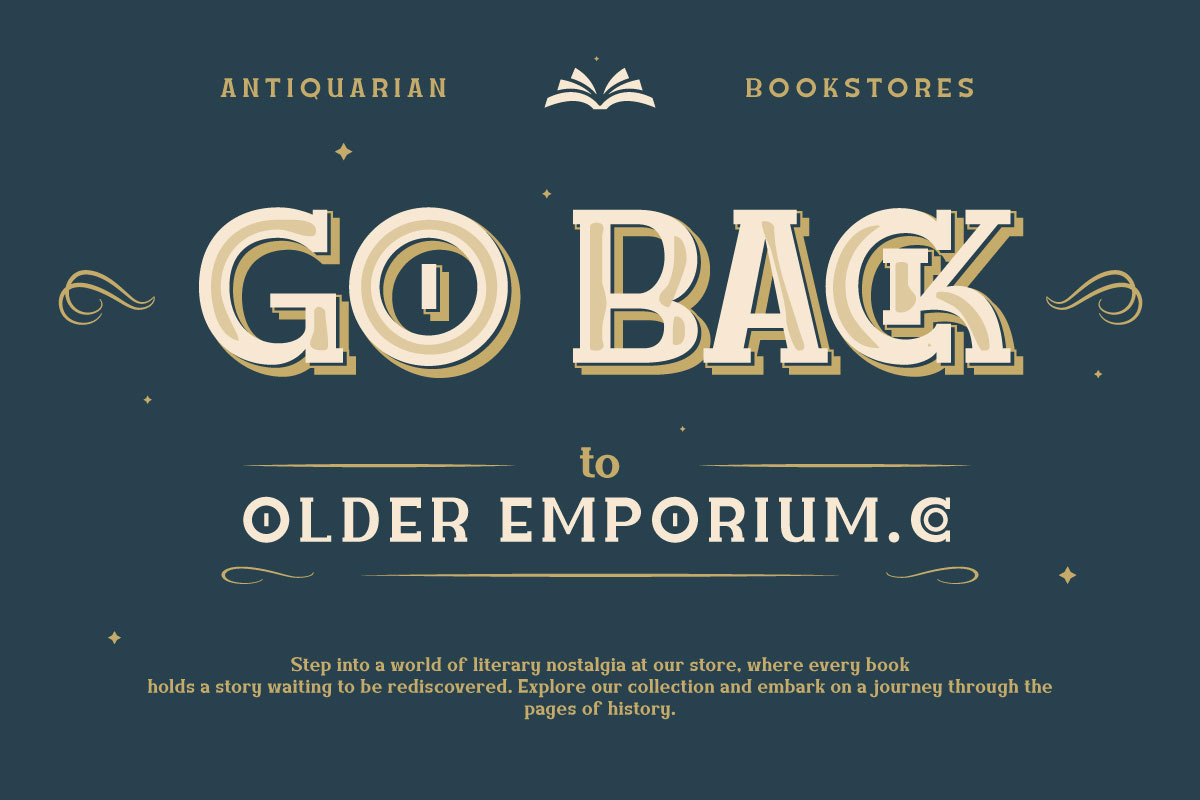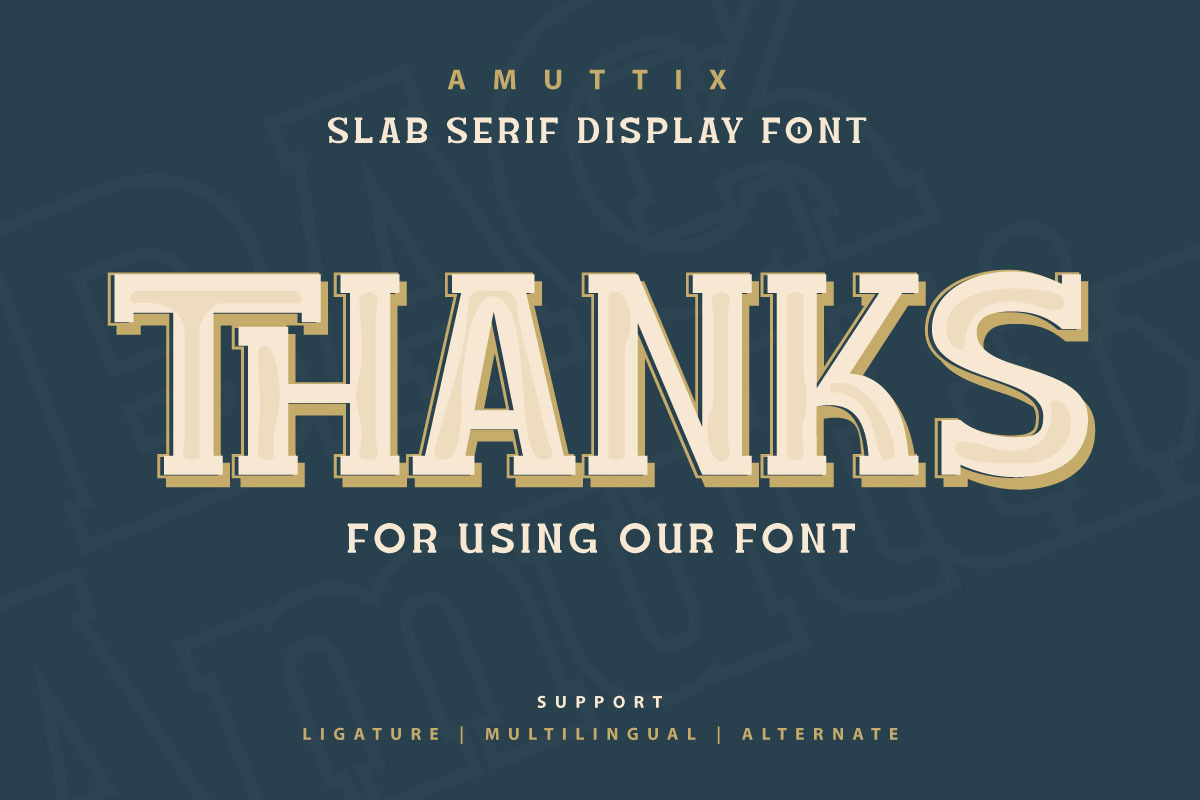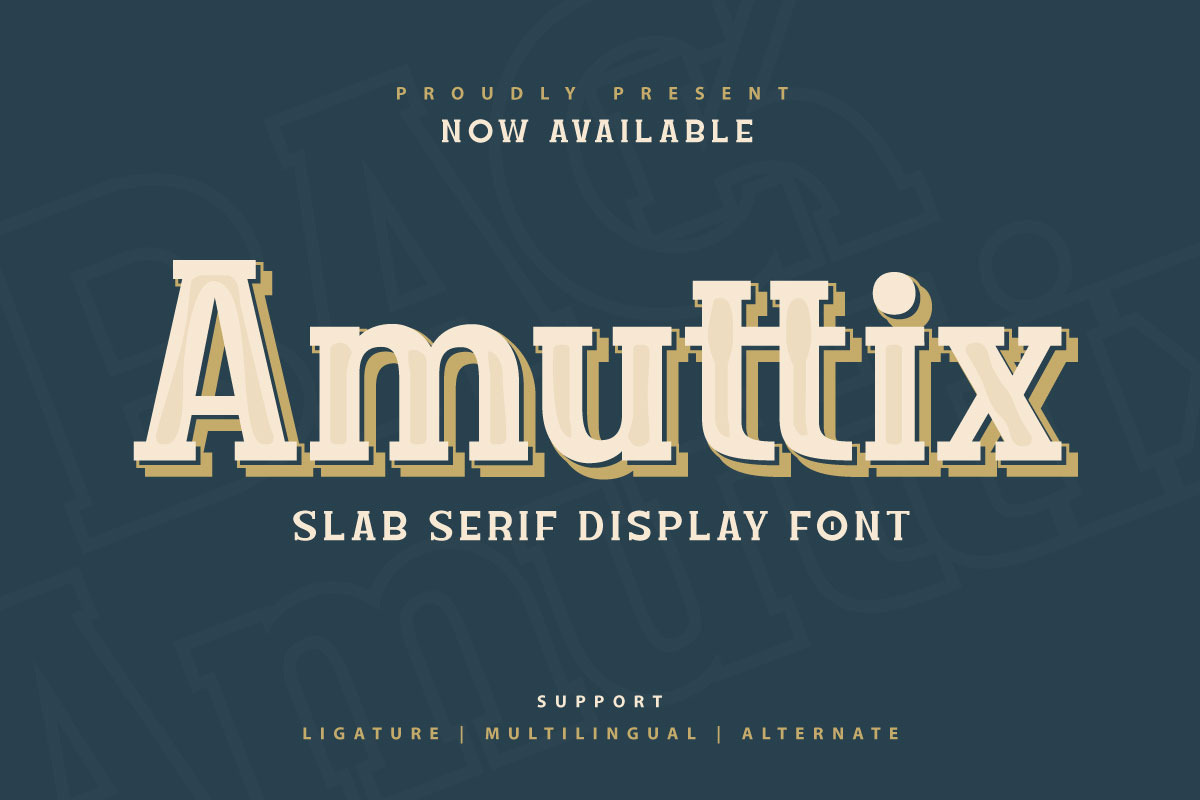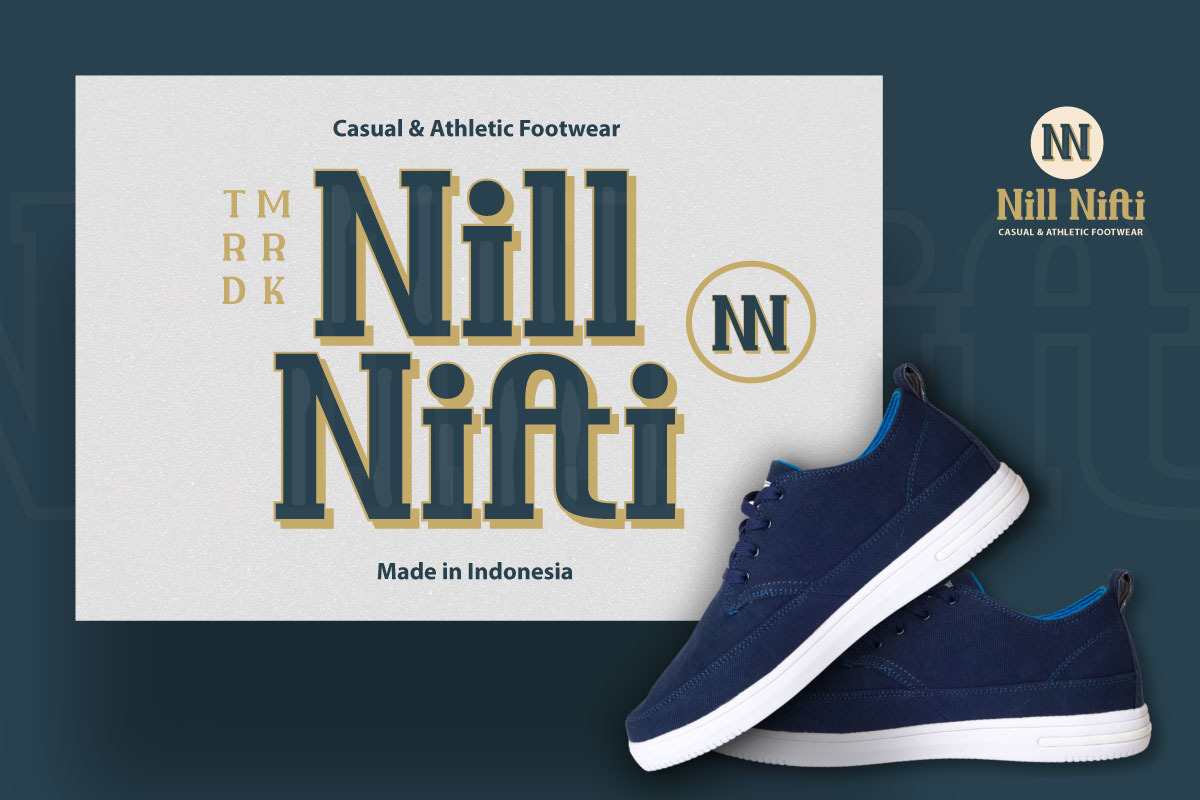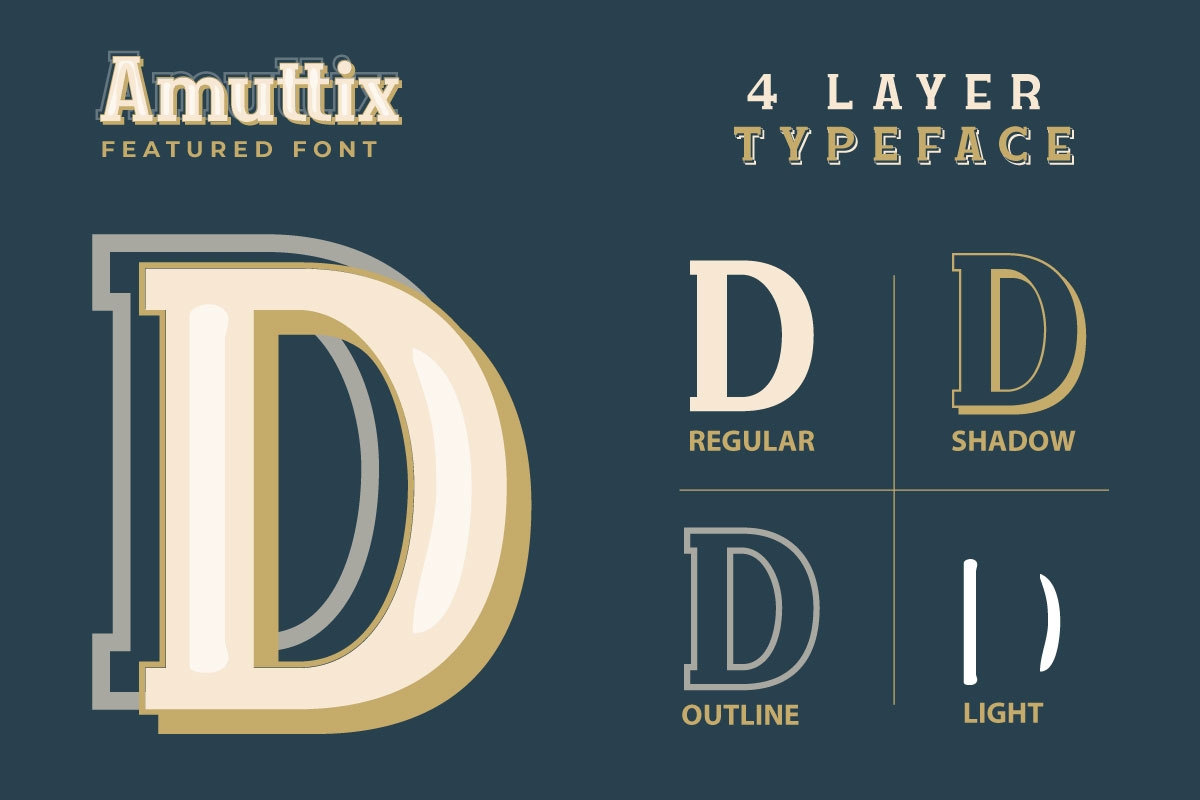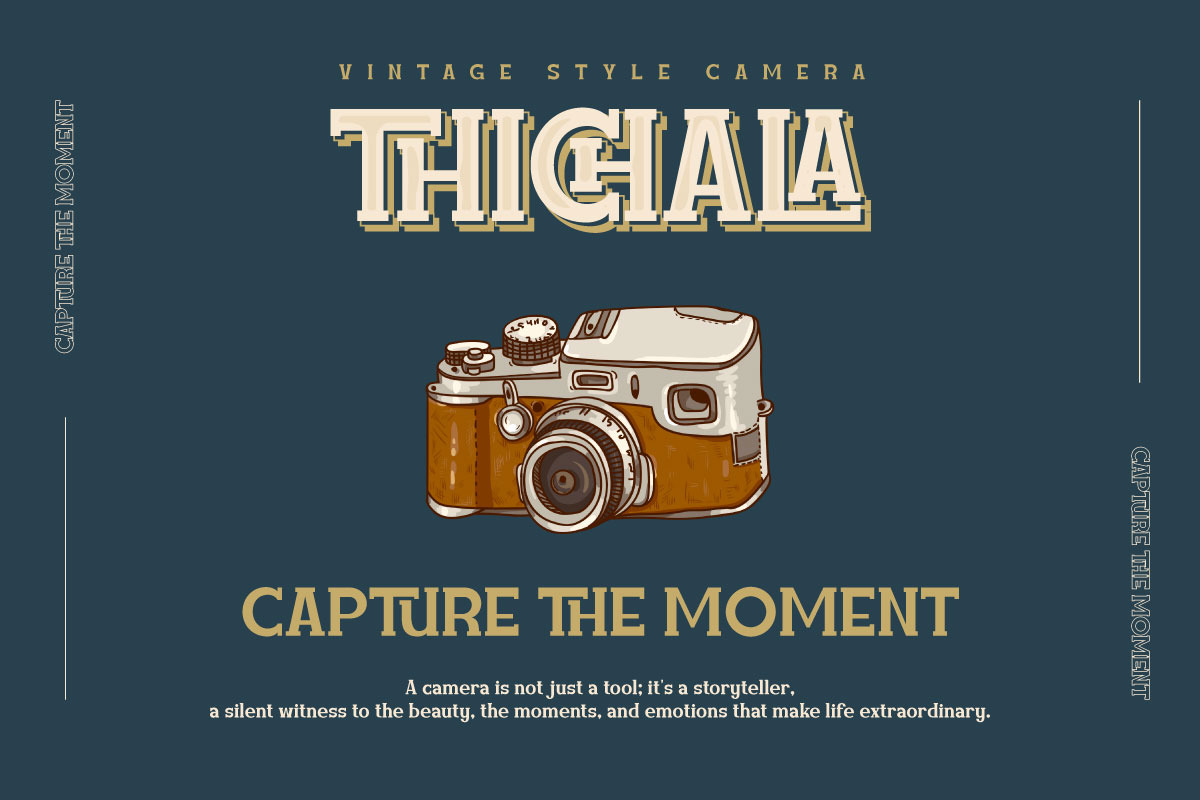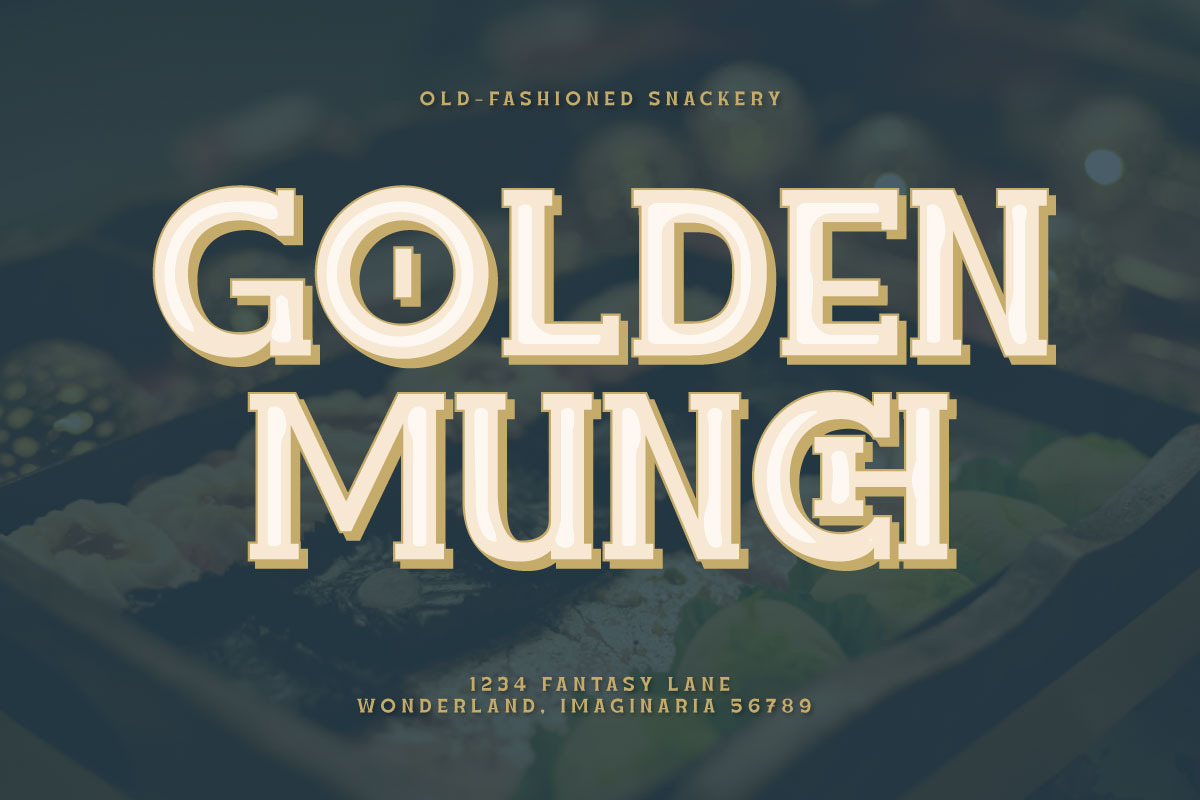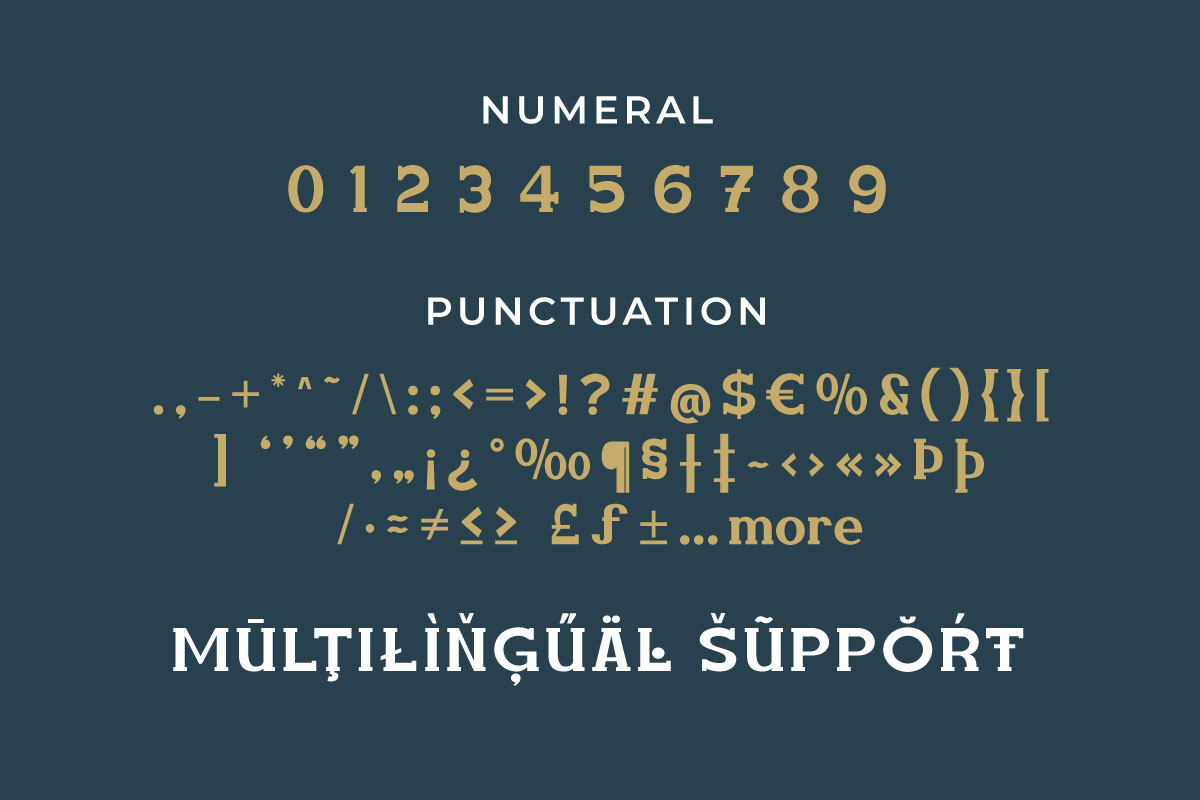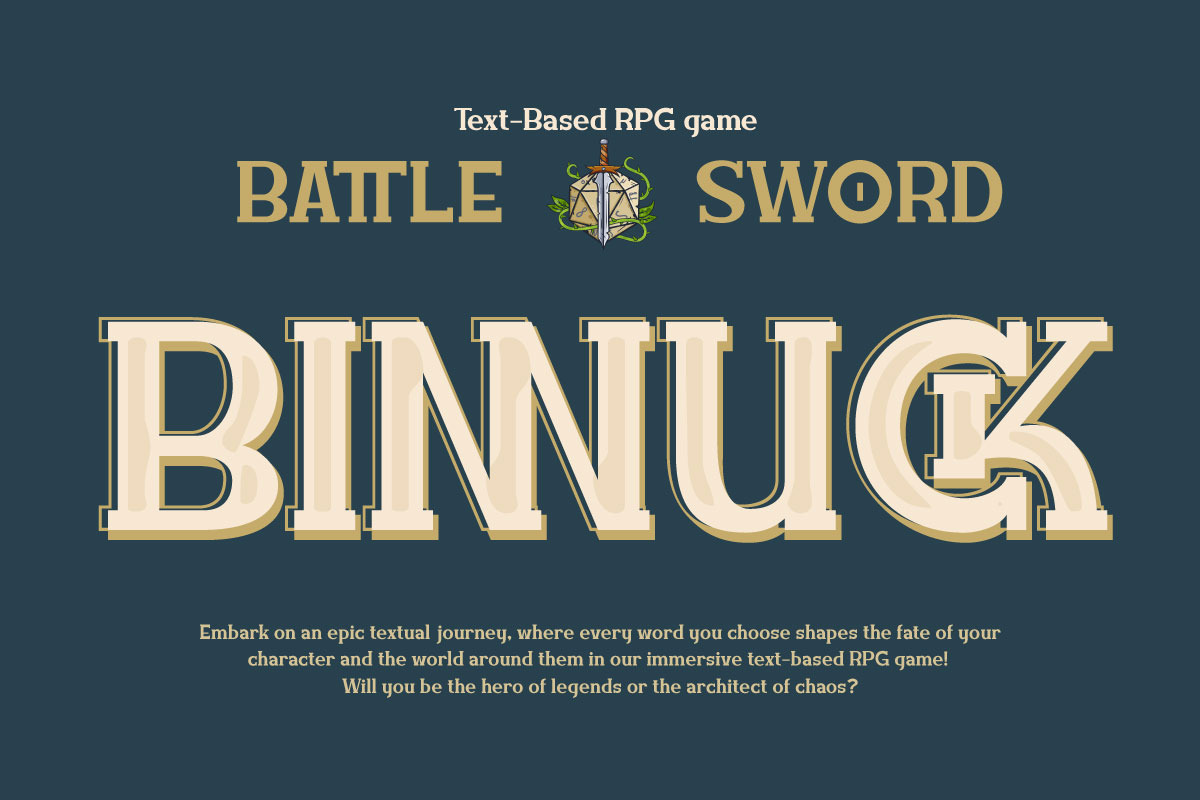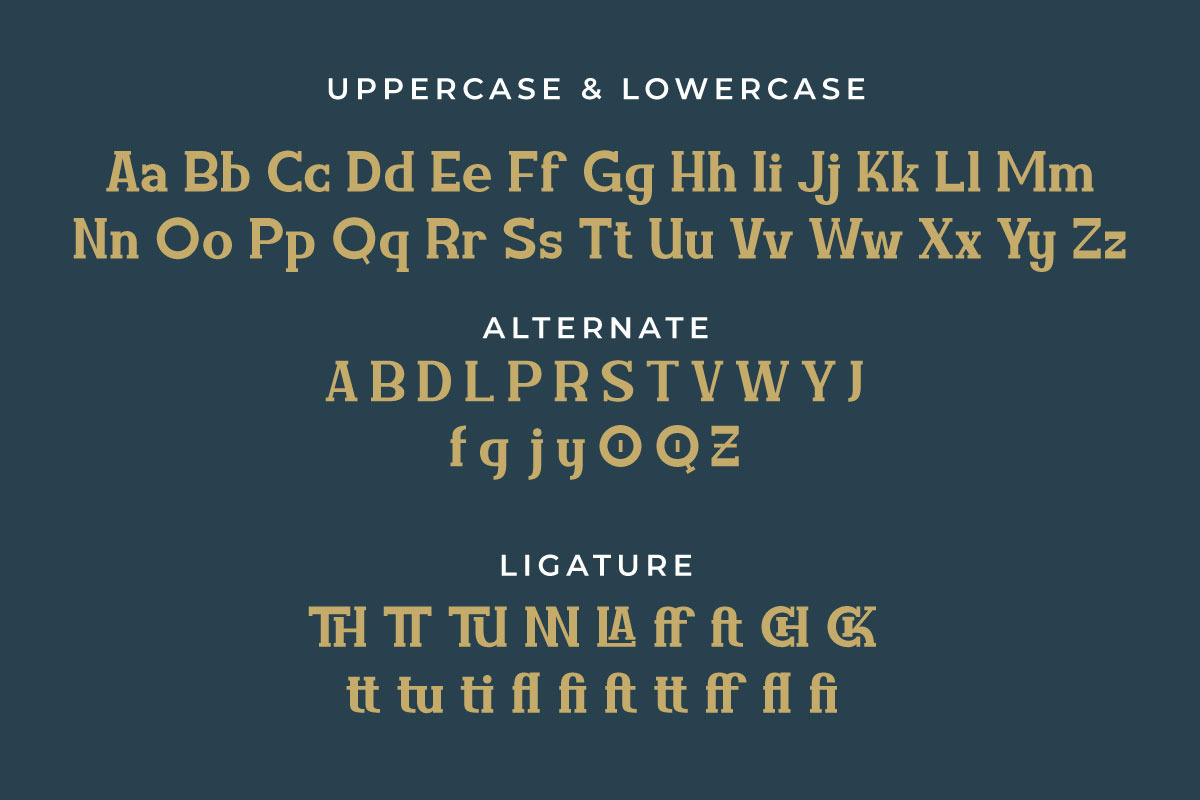
Amuttix - Serif Display Font
Welcome to the era of modern elegance with Amuttix, a slab serif display font that will elevate your visuals to the next level. Are you looking for a clean, elegant, and powerful look for your project? Amuttix is the answer.
With four different family variants, including Regular, Outline, Shadow, and Light, Amuttix gives you incredible flexibility in delivering a look that suits your design vision. You can create powerful and memorable messages with a distinctive touch of elegance.
This font not only offers great visual appeal but also supports multiple languages, ensuring your message is accessible to audiences around the world.
Amuttix - a symbol of modern perfection in every letter. Immediately use this font to bring an unforgettable impression to each of your projects!